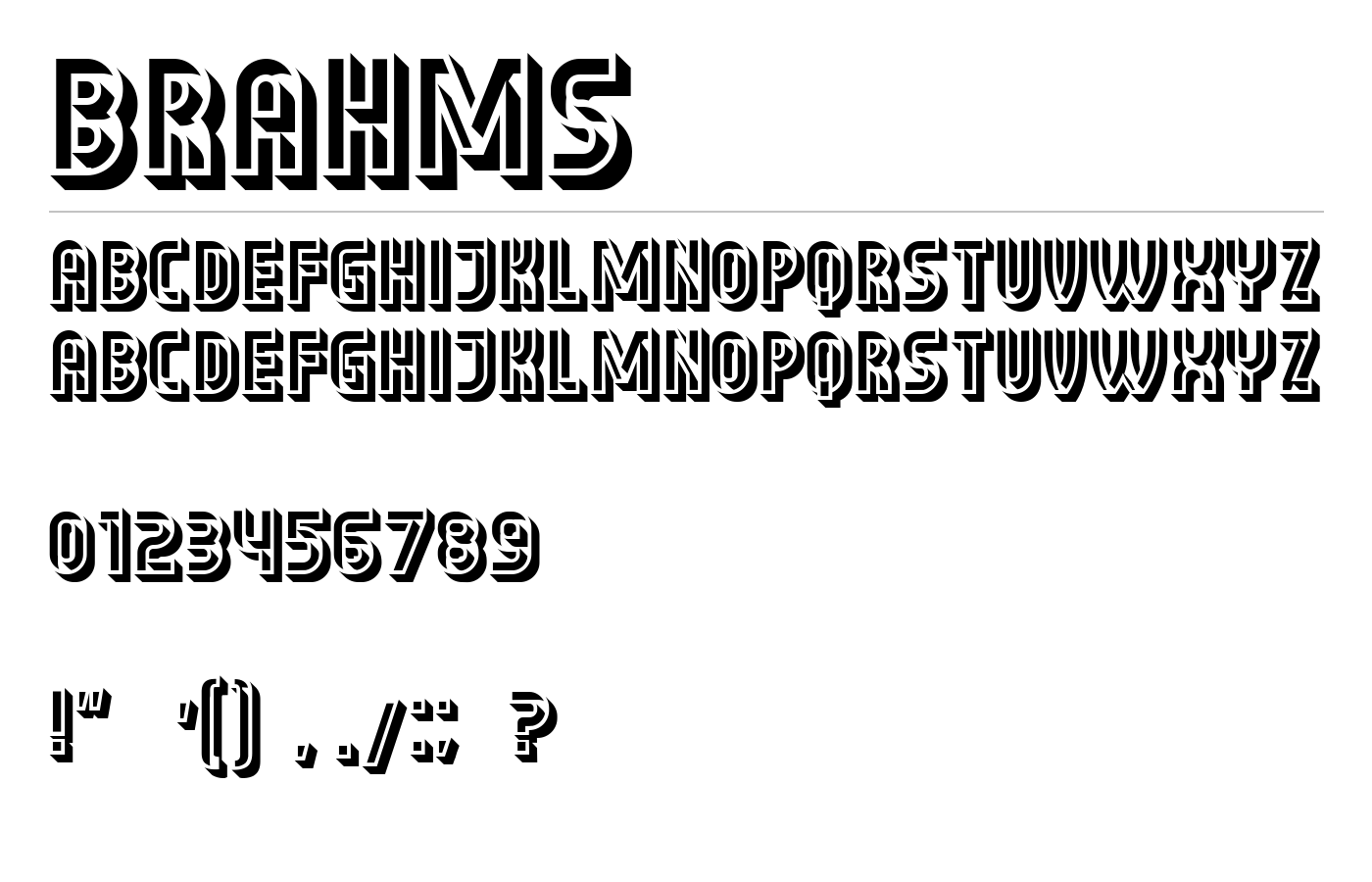
Brahms is a bold, decorative sans serif font featuring strong geometric shapes and a striking 3D shadow effect that adds depth and character. Its uppercase-only design with sharp angles and solid weight makes it perfect for eye-catching headlines, logos, and posters where a dramatic, vintage-inspired style is desired. This font works well for creative branding and display uses that need a bold, dynamic presence.
Brahms Font
About Brahms Font